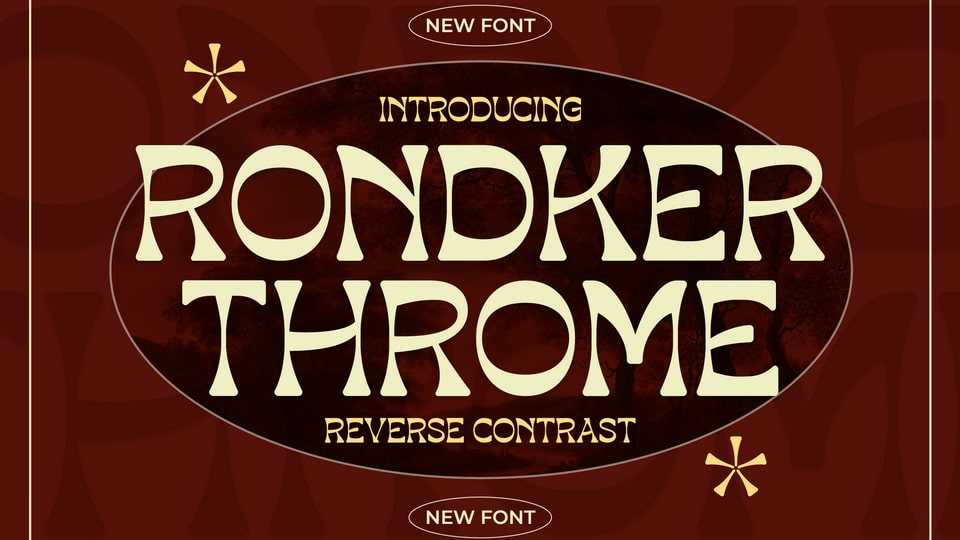
Download Rondker Throme font, a reverse contrast serif typeface with a unique style and modern look. Rondker Throme font is perfect for a vintage logo, book or movie title design, fashion brand, magazine, clothes, lettering, quotes, and so much more.